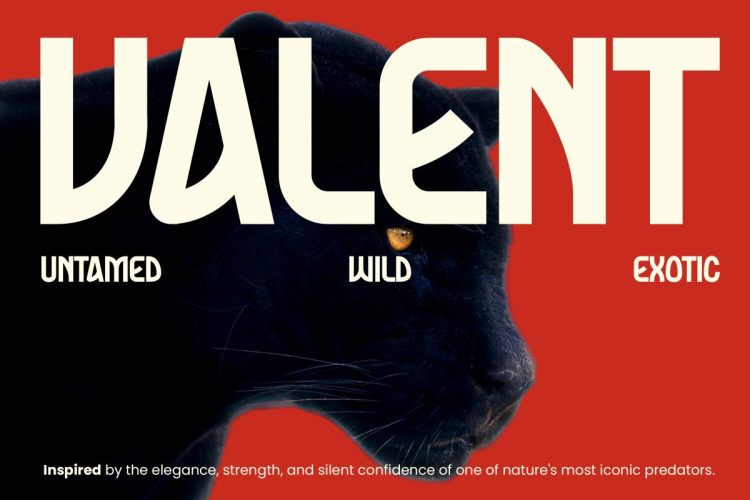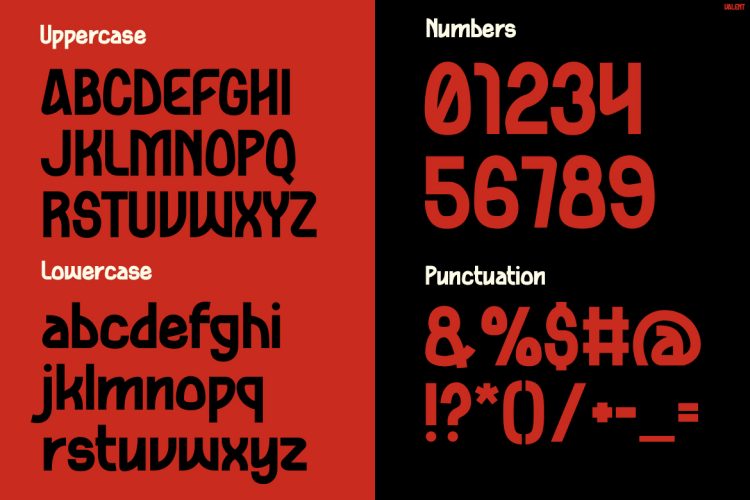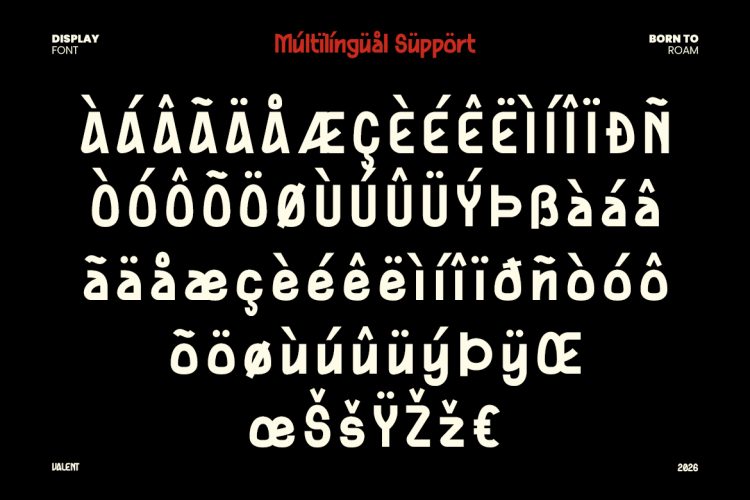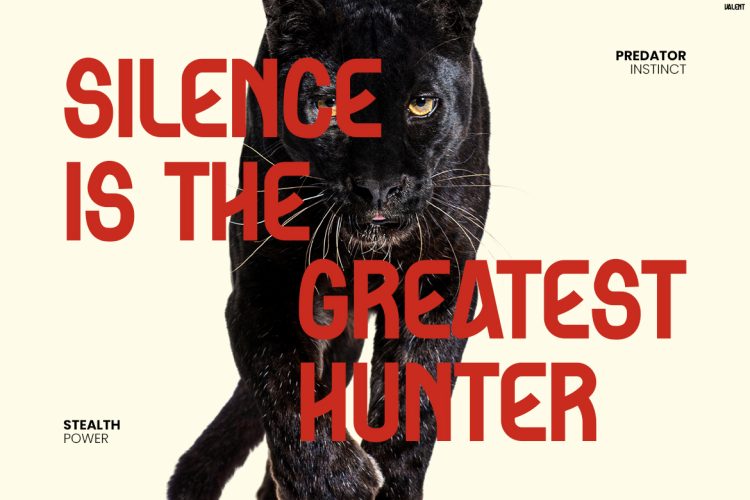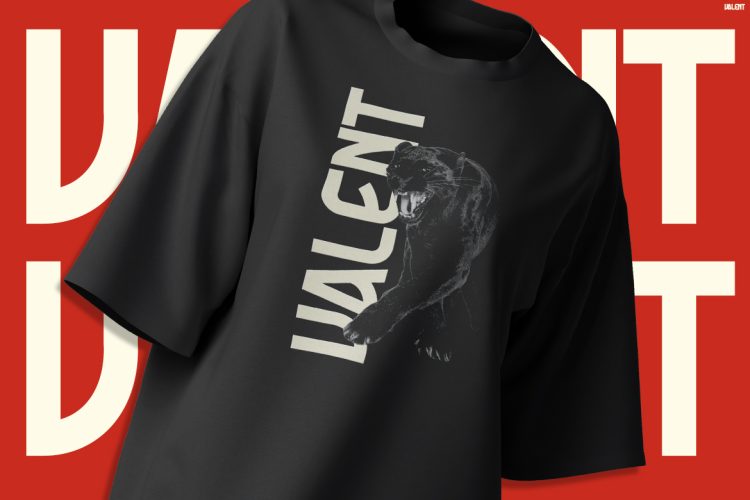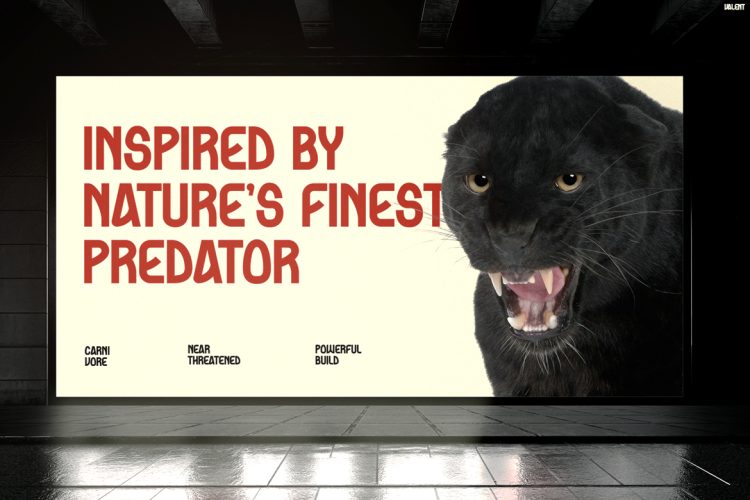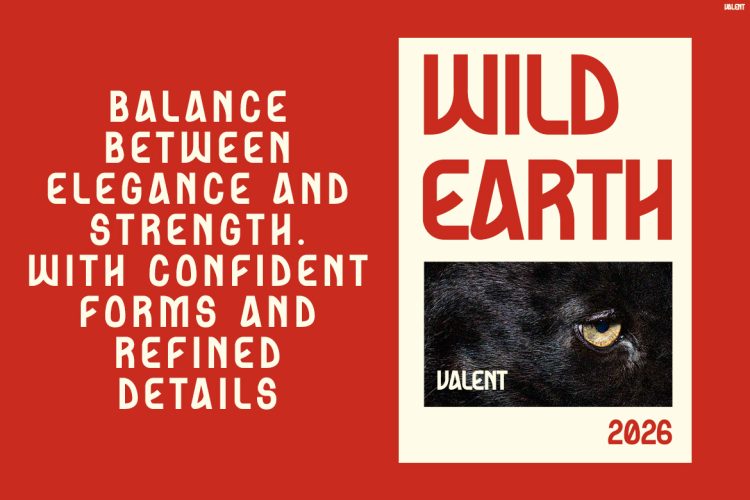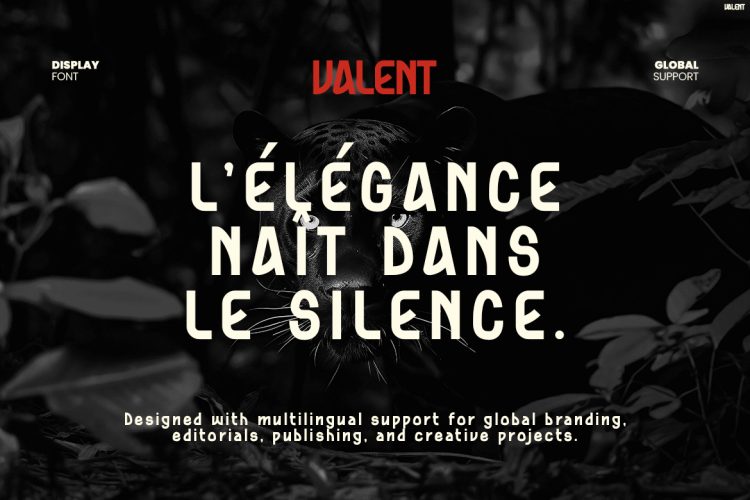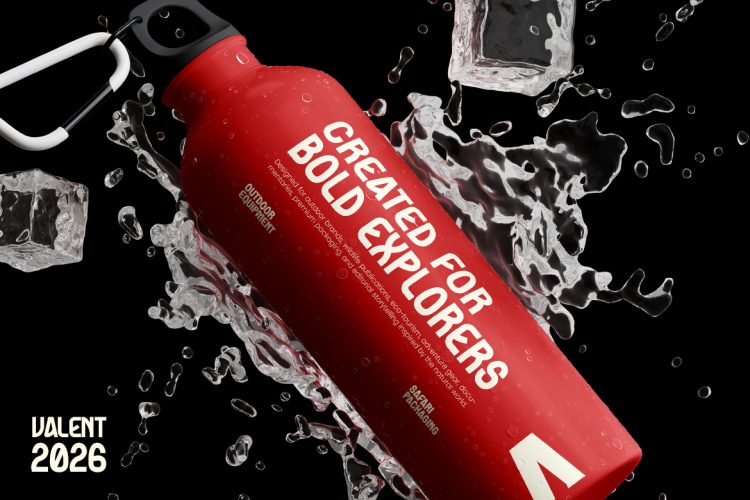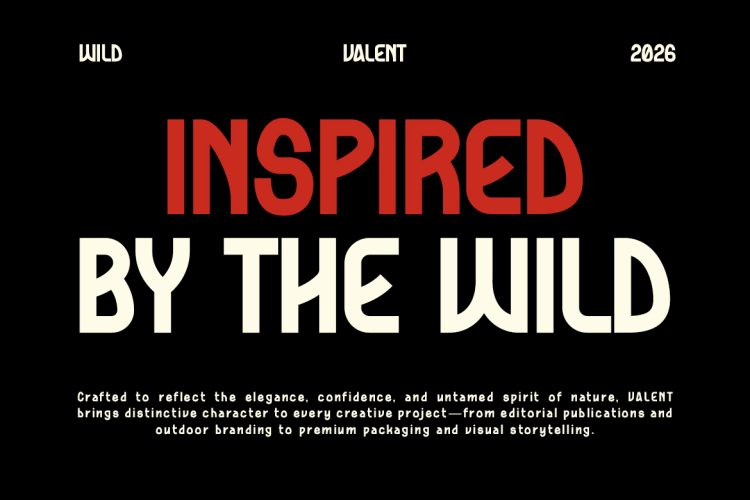
Modern Font Valent โ Primal Taypography for Bold Brands & Fearless Creatives
Modern Font Valent channels the fearless instinct of the wild into a striking display typeface that refuses to be overlooked. From the very first letter, its bold silhouettes and organic cuts create an intense visual rhythm inspired by nature’s strongest predators. Moreover, the handcrafted details add a raw personality that feels both powerful and authentic. As a result, every headline delivers confidence, authority, and unmistakable character. At the same time, the balanced construction keeps each word crisp and readable. Furthermore, Valent combines primal energy with modern precision, making it a standout choice for brands that want to lead instead of follow.
Why It Stands Above the Rest
Modern Font Valent is more than a display fontโit’s a statement of confidence. Not only does it command attention, but it also gives every design a fearless identity. In addition, its bold shapes work effortlessly across outdoor campaigns, sports branding, wildlife projects, apparel graphics, product packaging, posters, editorial covers, and social media content. Likewise, the distinctive letterforms create a memorable visual experience that instantly separates your work from the competition. Most importantly, Valent helps transform simple messages into bold visual stories.
Modern Font Valent Perfect For
- Outdoor and adventure brands
- Streetwear and lifestyle apparel
- Wildlife and nature campaigns
- Sports and fitness promotions
- Product packaging and labels
- Posters and bold advertising
- Social media content
- Logos and merchandise
Let Your Brand Roar
If ordinary typography isn’t enough, Modern Font Valent is ready to raise the standard. Furthermore, its fearless style gives every headline a commanding presence. Consequently, your branding becomes stronger, more recognizable, and impossible to ignore. Finally, choose Valent today and let every design speak with confidence, strength, and the untamed spirit of the wild.